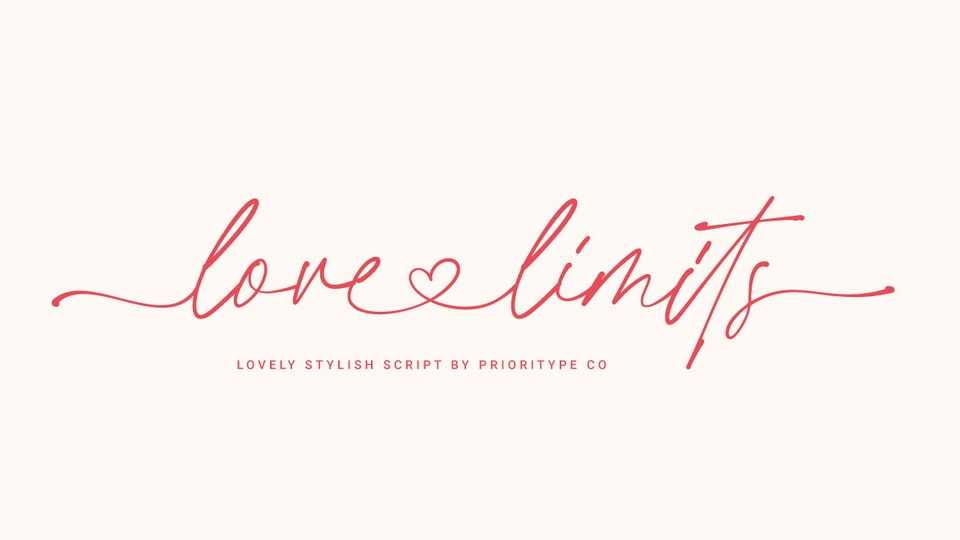
Download Love Limits font, a stylish handwritten typeface ready to accompany your design projects. Love Limits is perfect for branding, logotypes, wedding invitations, and many more.
Designer: Prioritype Co